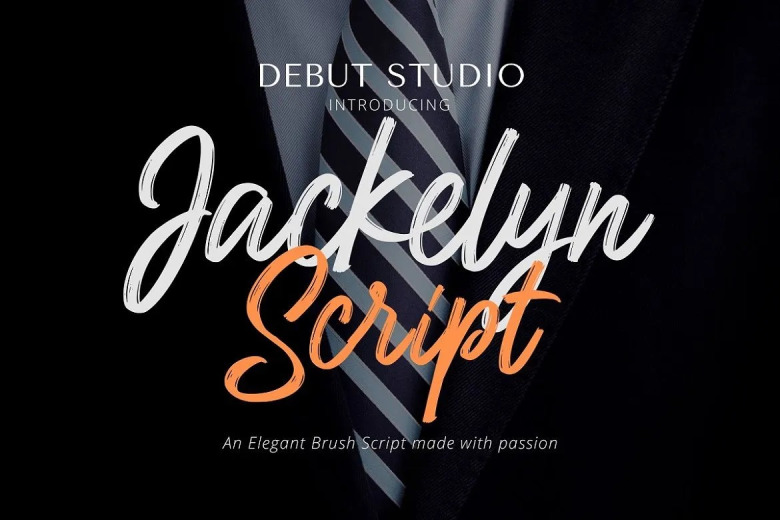
Jackelyn Script Font
Jackelyn Script is a modern and cool handwritten brush font. Whether you’re looking for fonts for Instagram or calligraphy scripts for DIY projects, this font will turn any creative idea into a true piece of art!
Jackelyn Script Brush Font